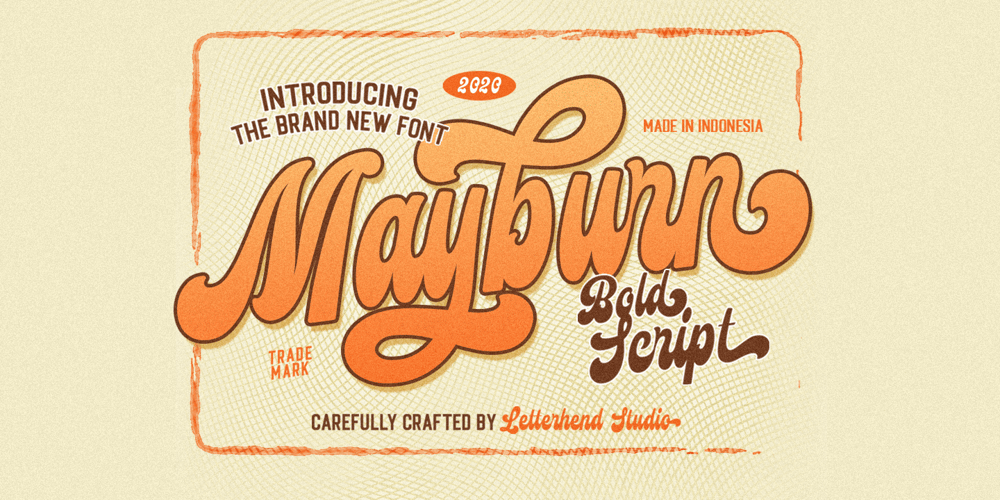
Mayburn Font Family was designed by Hendry Juanda and published by Letterhend. Mayburn contains 1 styles and family package options. Introducing, Mayburn Script – a bold script with a touch of retro feel. This type of font perfectly made to be applied especially in logo, and the other various formal forms such as invitations, labels, logos, magazines, books, greeting / wedding cards, packaging, fashion, make up, stationery, novels, labels or any type of advertising purpose.Features : uppercase & lowercase numbers and punctuation multilingual alternates and ligatures PUA encoded We highly recommend using a program that supports OpenType features and Glyphs panels like many of Adobe apps and Corel Draw, so you can see and access all Glyph variations.